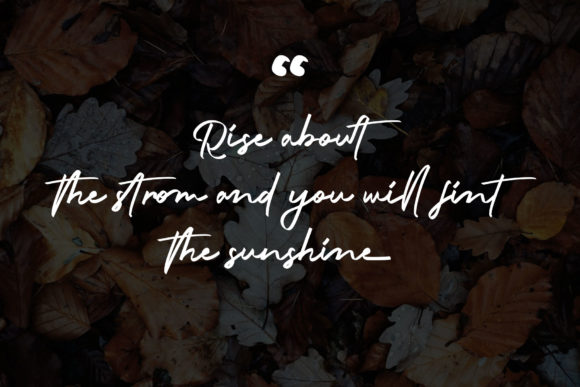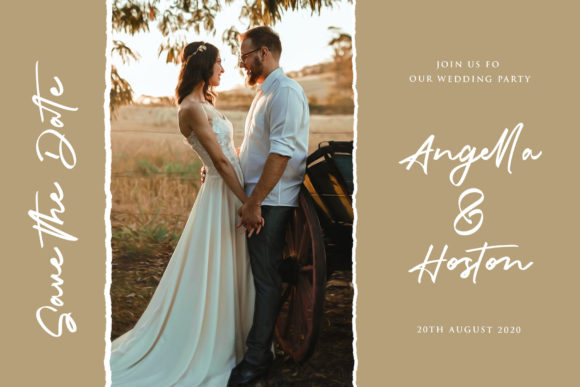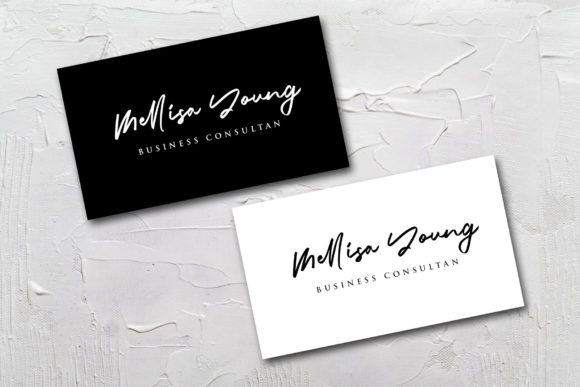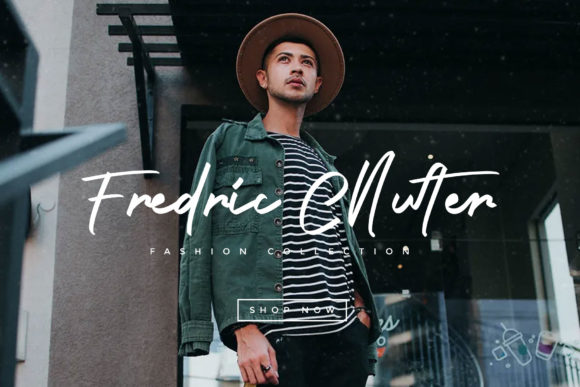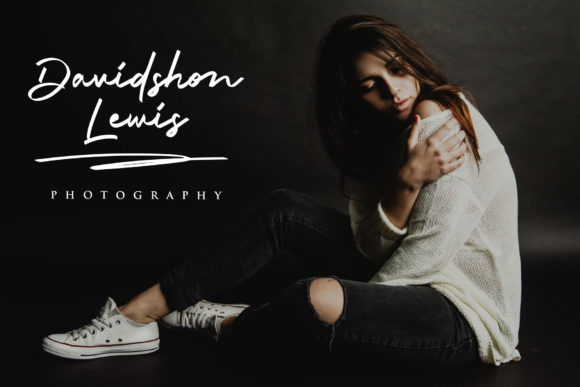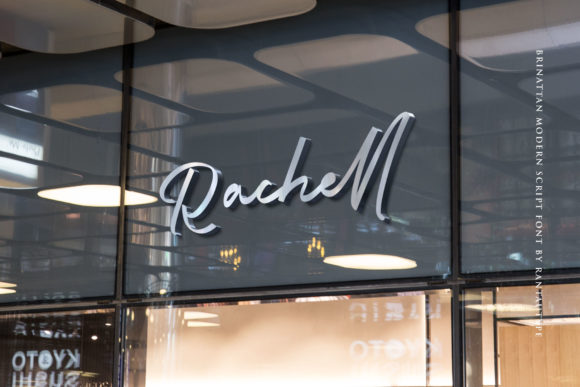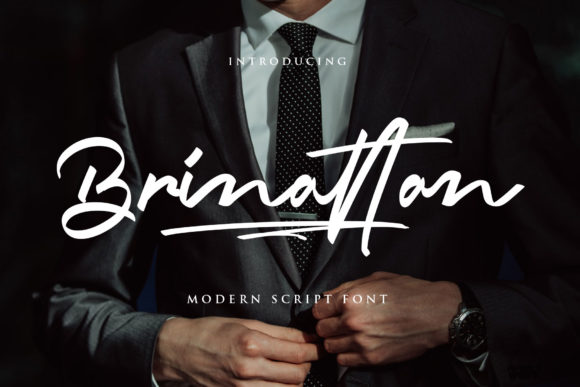
Introducing Brinattan Font: Elevate Your Designs with Elegance and Sophistication
Are you a designer or crafter looking for a font that adds a touch of elegance and beauty to your creations? Look no further than Brinattan Font, a stunning handwritten script font that’s perfect for a variety of design projects. In this article, we’ll explore the features and benefits of Brinattan Font, and show you how it can elevate your designs to the next level.
What is Brinattan Font?
Brinattan Font is a beautiful handwritten script font that’s designed to add a touch of sophistication and elegance to your designs. With its flowing curves and delicate lines, this font is perfect for creating stunning wedding invitations, thank you cards, quotes, greeting cards, logos, business cards, and more.
Key Features of Brinattan Font
• Elegant and Beautiful Design: Brinattan Font features an elegant and beautiful design that’s perfect for creating sophisticated and eye-catching designs.
• Handwritten Script Style: This font has a handwritten script style that adds a personal touch to your designs.
• PUA Encoded: Brinattan Font is PUA encoded, which means you can access all of the glyphs and swashes with ease.
• Versatile: This font is perfect for a variety of design projects, including wedding invitations, thank you cards, quotes, greeting cards, logos, business cards, and more.
Benefits of Using Brinattan Font
So why should you choose Brinattan Font for your design projects? Here are just a few benefits of using this amazing font:
• Adds a Personal Touch: Brinattan Font’s handwritten script style adds a personal touch to your designs, making them stand out from the crowd.
• Elegant and Sophisticated: This font’s elegant and sophisticated design makes it perfect for creating high-end designs that impress.
• Easy to Use: Brinattan Font is PUA encoded, making it easy to access all of the glyphs and swashes.
• Versatile: This font is perfect for a variety of design projects, making it a great addition to your font library.
How to Use Brinattan Font in Your Designs
Using Brinattan Font in your designs is easy. Here are a few tips to get you started:
• Wedding Invitations: Use Brinattan Font to create stunning wedding invitations that set the tone for the big day.
• Thank You Cards: Add a personal touch to your thank you cards with Brinattan Font’s elegant and beautiful design.
• Quotes and Greeting Cards: Use Brinattan Font to create inspiring quotes and greeting cards that make a lasting impression.
• Logos and Business Cards: Add a touch of sophistication to your logos and business cards with Brinattan Font.
In conclusion, Brinattan Font is a stunning handwritten script font that’s perfect for designers and crafters looking to add a touch of elegance and beauty to their designs. With its elegant and sophisticated design, PUA encoding, and versatility, this font is a great addition to any font library. Whether you’re creating wedding invitations, thank you cards, quotes, greeting cards, logos, business cards, or more, Brinattan Font is the perfect choice.